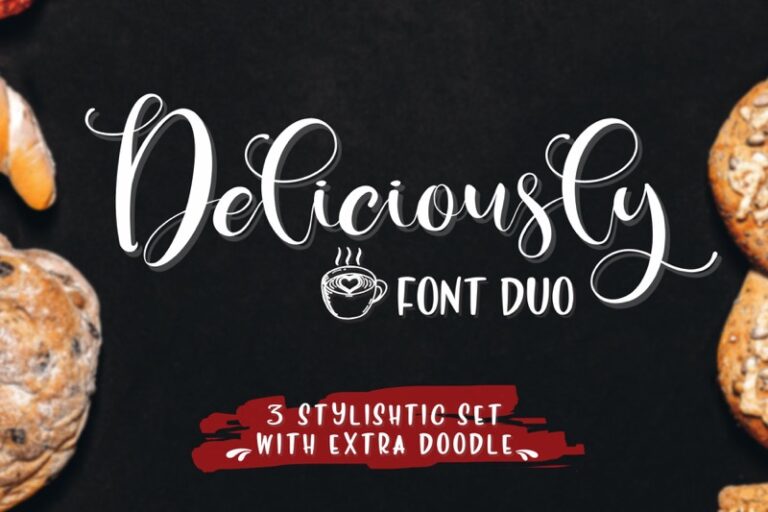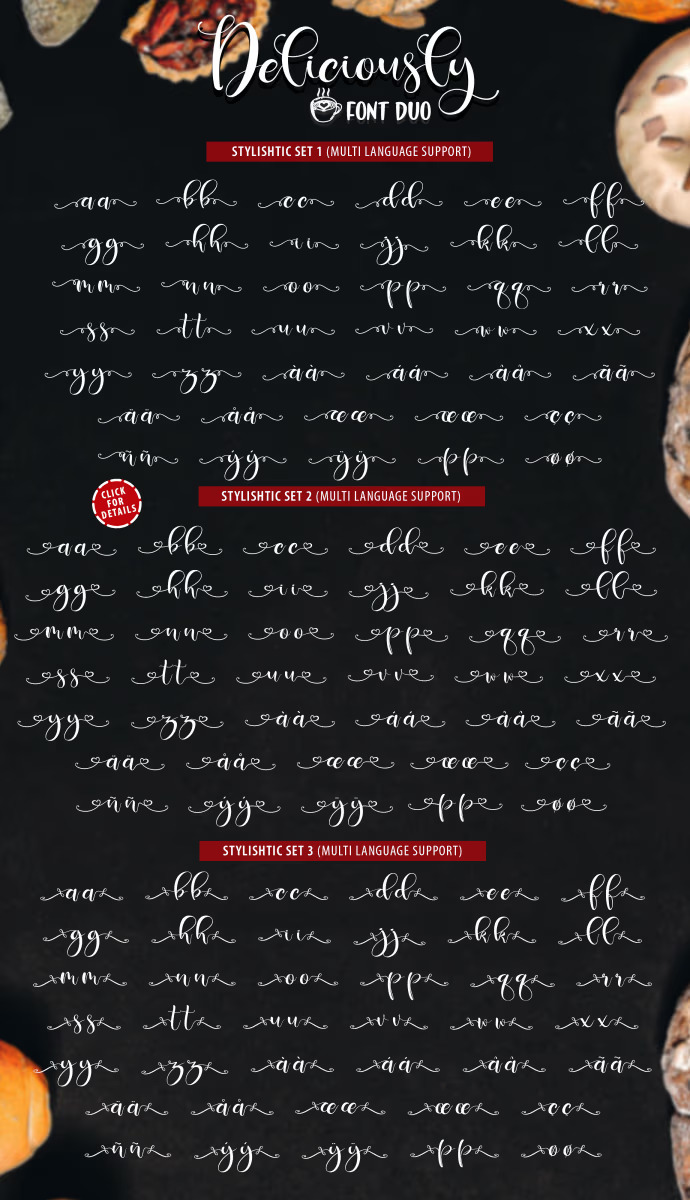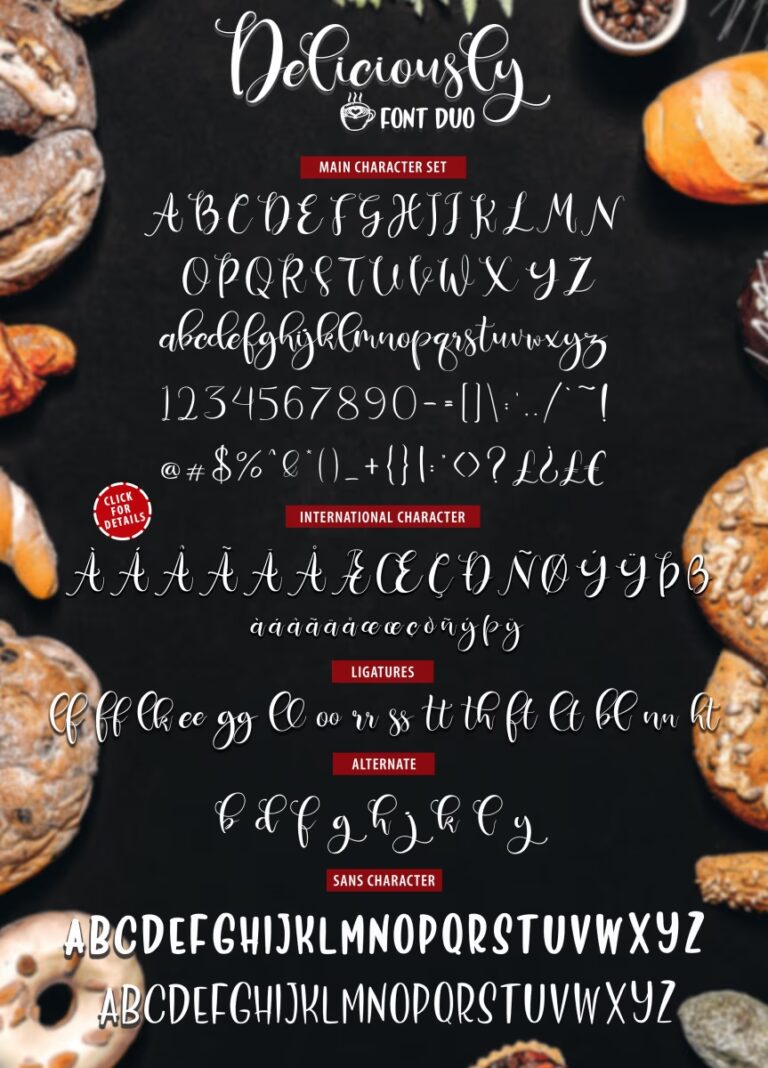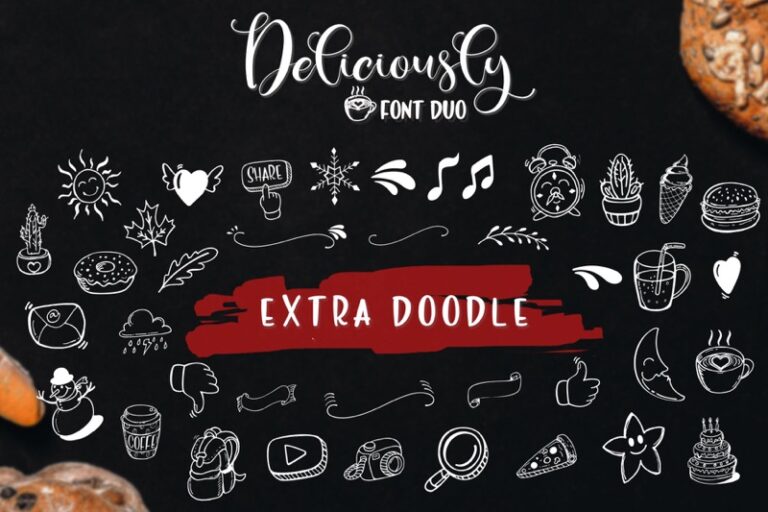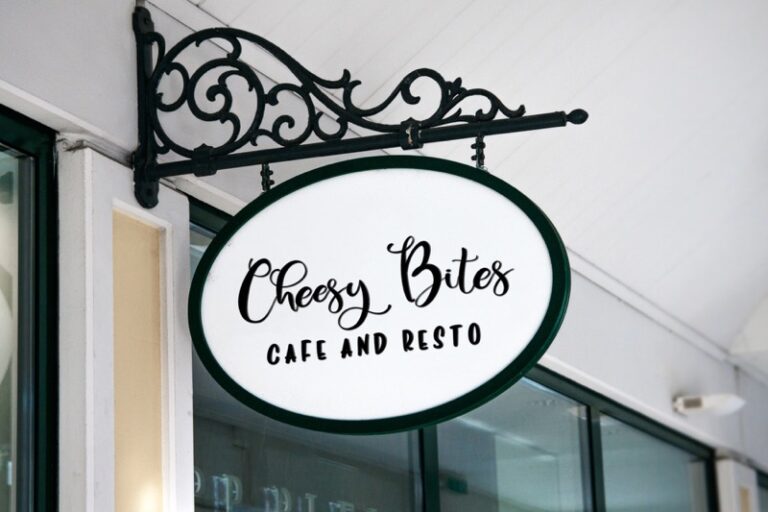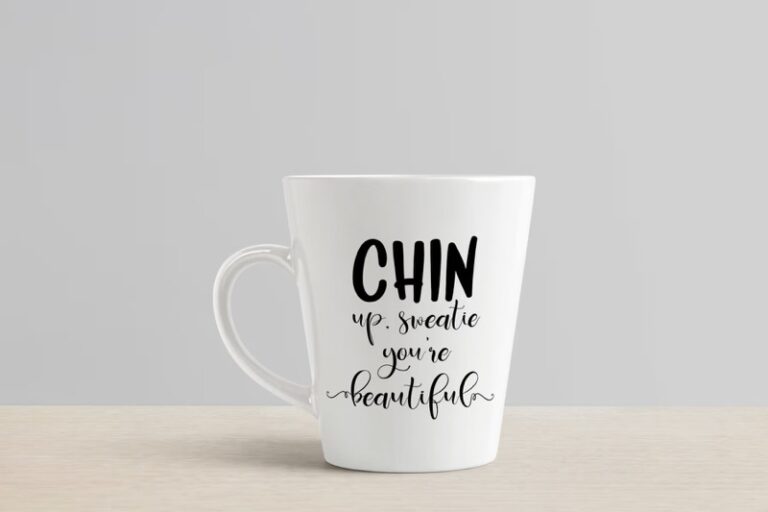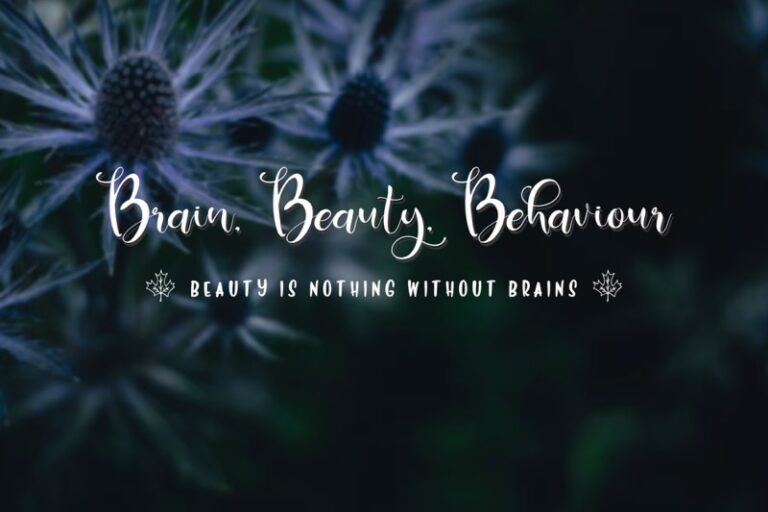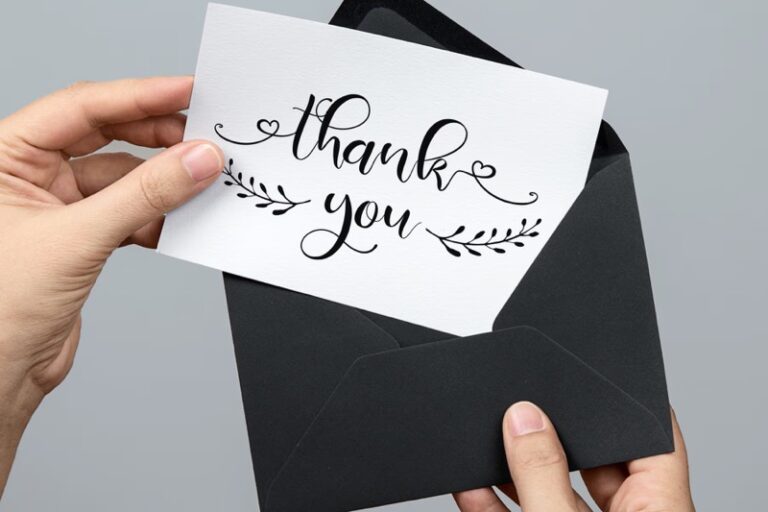
Deliciously Font Duo – Modern Font Duo Sans Serif and Script
Deliciously Regular
Deliciously Sans
Deliciously Doodle
Deliciously SS1
Deliciously SS2
Deliciously SS3
Let me introduce you to this Deliciously Font Duo set. Deliciously Font Duo Set is a modern font script. This font is ideal for logos, branding projects, product packaging, quotes, greeting cards, and other lovely projects. The Font Duo Set includes a complete set of lowercase and uppercase letters, punctuation, numerals, multilingual support, and numerous cute alternates.
- Stylistic Alternates
- Character Set A-Z
- Numerals and Punctuation (OpenType Standard)
- Accents (Multilingual Characters)
- 3 Stylistic Set with Multilingual Support
- Bold and Regular Fun Sans Font
- 41 Fun Doodles